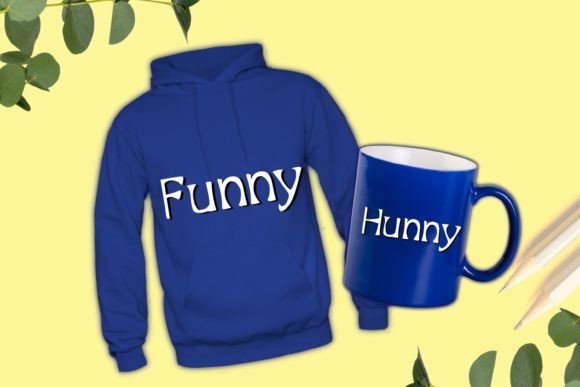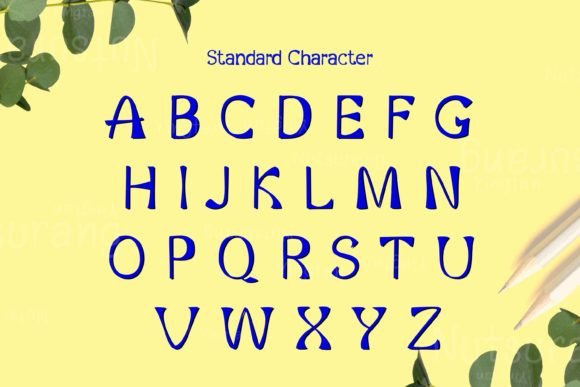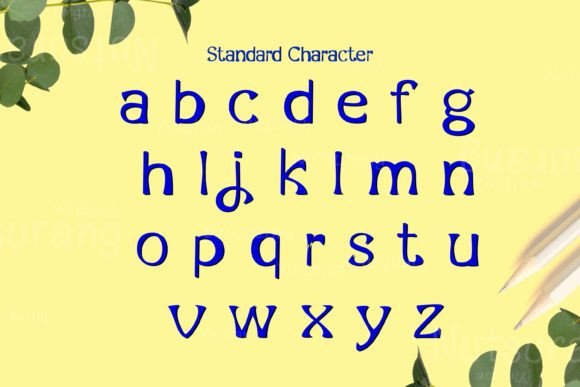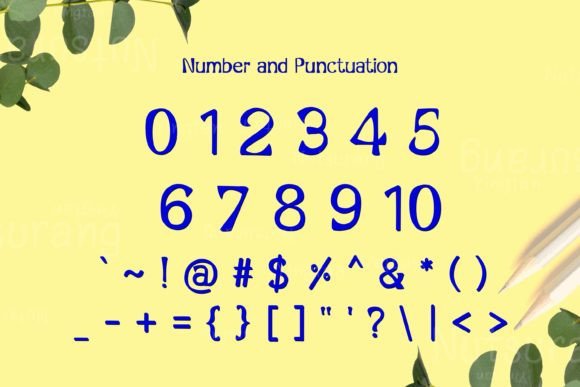
Introducing the Alphabet Font: Where Whimsy Meets Design
Have you ever found yourself scribbling down a quick idea in a coffee shop, only to have the barista give you a puzzled look as they try to decipher your handwriting? We’ve all been there. But what if you could capture that same carefree spirit in your design projects? Enter the Alphabet Font, a fun and playful handwritten font that adds a modern yet whimsical touch to any project.
With its unique, hand-drawn style, the Alphabet Font is perfect for designers looking to inject a bit of personality into their work. Whether you’re creating a logo, social media graphics, or even a children’s book, this font is sure to bring a friendly touch to your projects. And the best part? It’s incredibly versatile, making it a valuable addition to any designer’s toolkit.
Alphabet Font Key Features
- Font Type: Alphabet Font is a sans-serif typeface, ideal for digital and print media.
- Unique Characteristics: Alphabet Font features a clean, modern design with subtle rounded edges, making it perfect for body text, headings, and titles.
Alphabet Font Review
Overall, I think the Alphabet Font has some great qualities that make it a decent choice for designers, but it also has some limitations that might hold it back.
- Legibility: The font is easy to read, even at small sizes, making it perfect for body text or captions.
- Variety: It comes in a range of styles, from casual to formal, allowing designers to choose the right tone for their project.
- Flexibility: Alphabet Font can be used for a variety of projects, from print materials to digital interfaces.
- Lack of Distinction: The font’s style is fairly generic, making it hard to stand out in a crowded design market.
- Limited Expressiveness: The font’s design doesn’t convey much emotion or personality, which can make it feel flat and unengaging.
- No Unique Touch: The font doesn’t have any distinctive features that would make it memorable or iconic.
Overall, I’d say the Alphabet Font is a solid choice for designers who need a versatile, easy-to-read font, but it’s not particularly exciting or memorable. If you’re looking for a font that makes a statement, you might want to consider something else.
Alphabet font is commonly used in children’s educational materials, such as alphabet books and worksheets.
It’s also used in graphic design projects, such as logos and titles, where a playful and creative touch is needed.
Alphabet font can be used in various digital platforms, including websites, social media, and mobile apps, to add a touch of whimsy and personality.